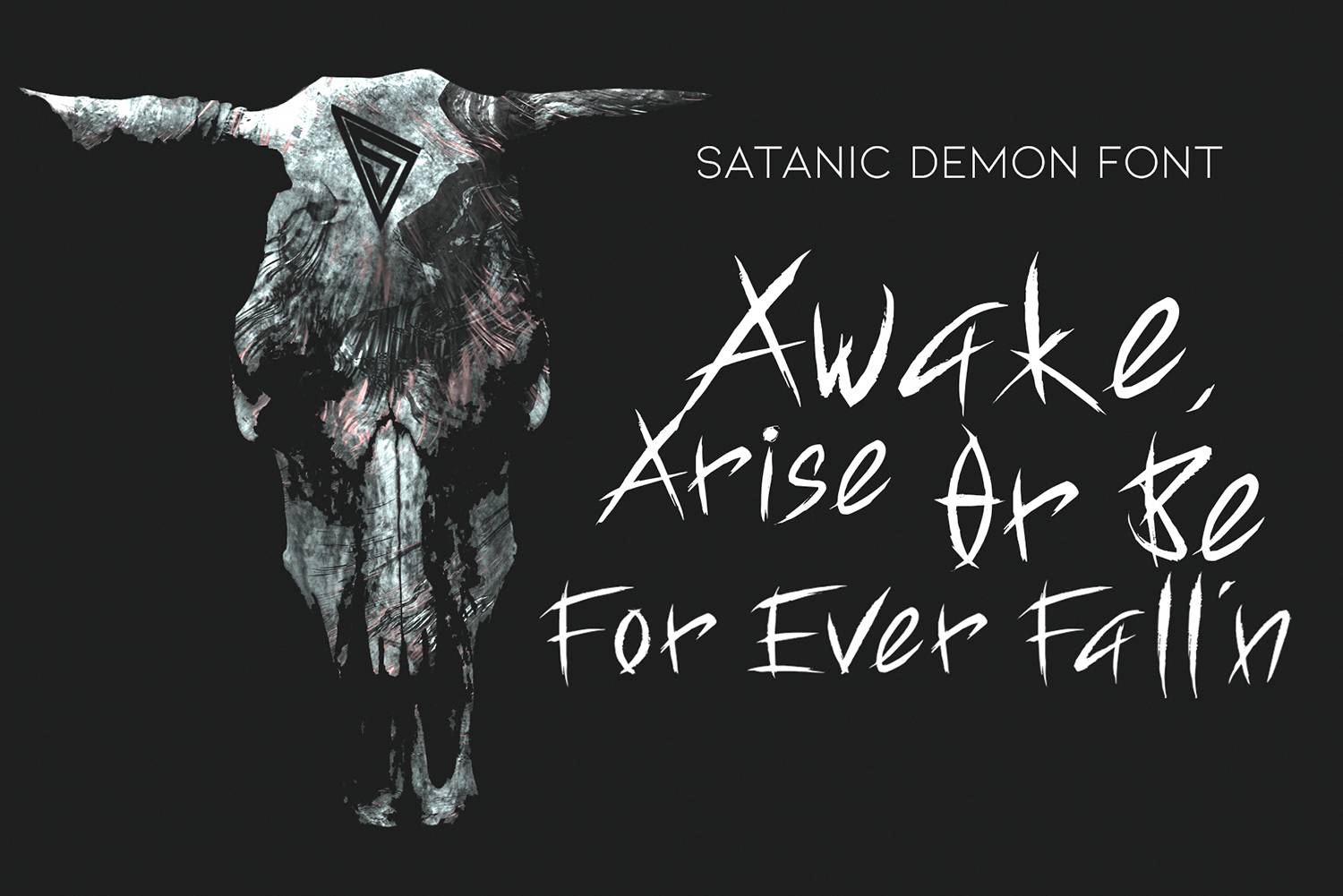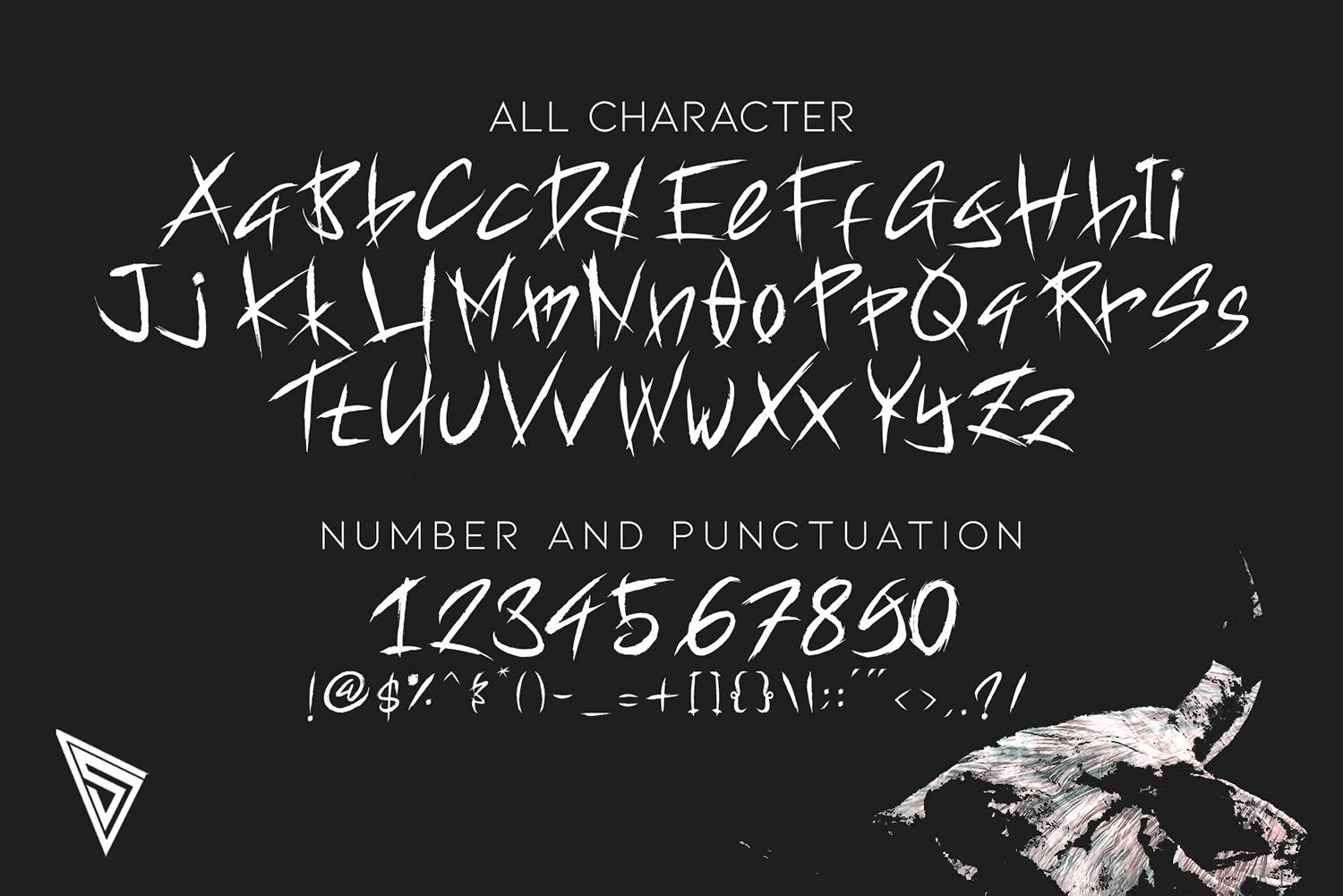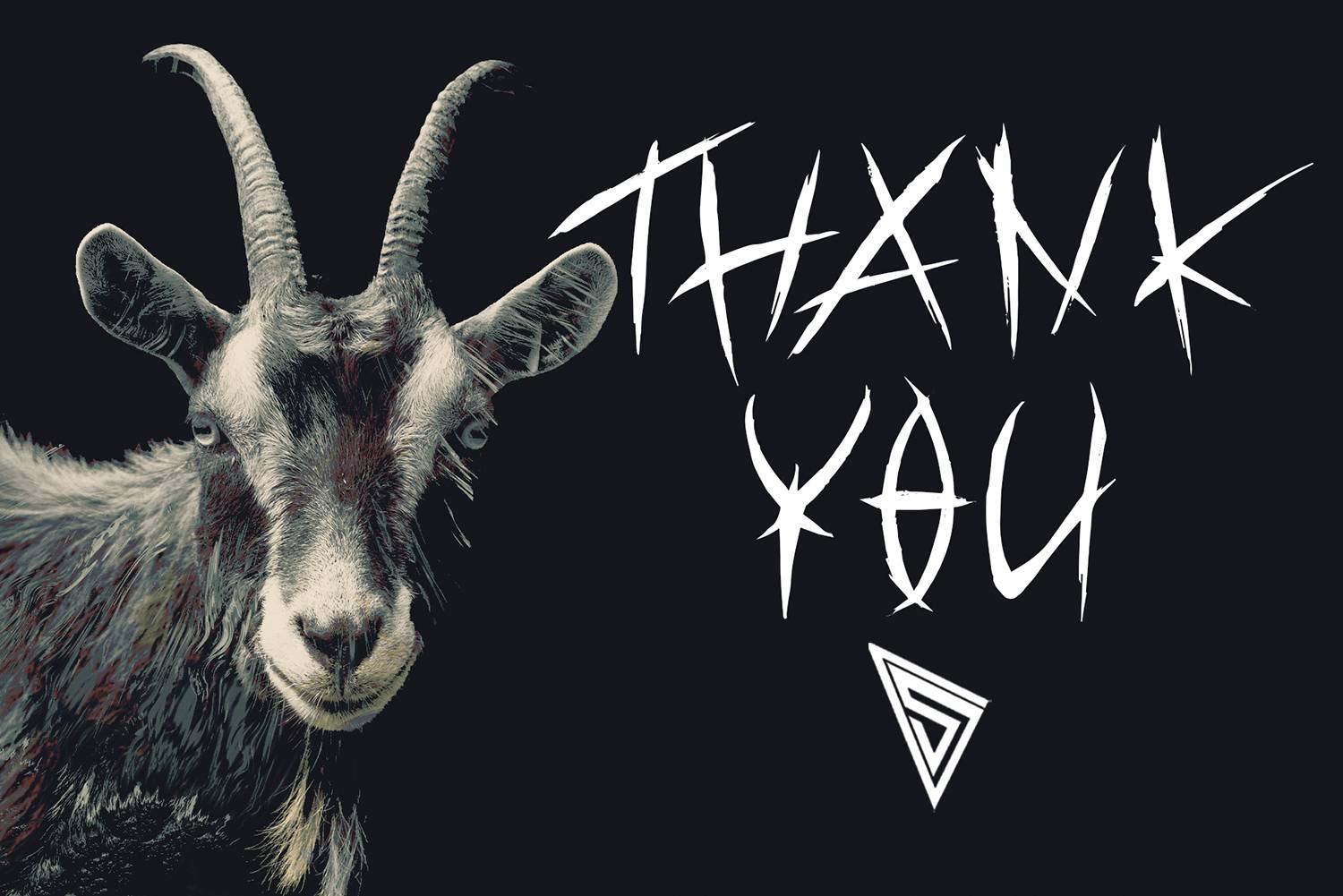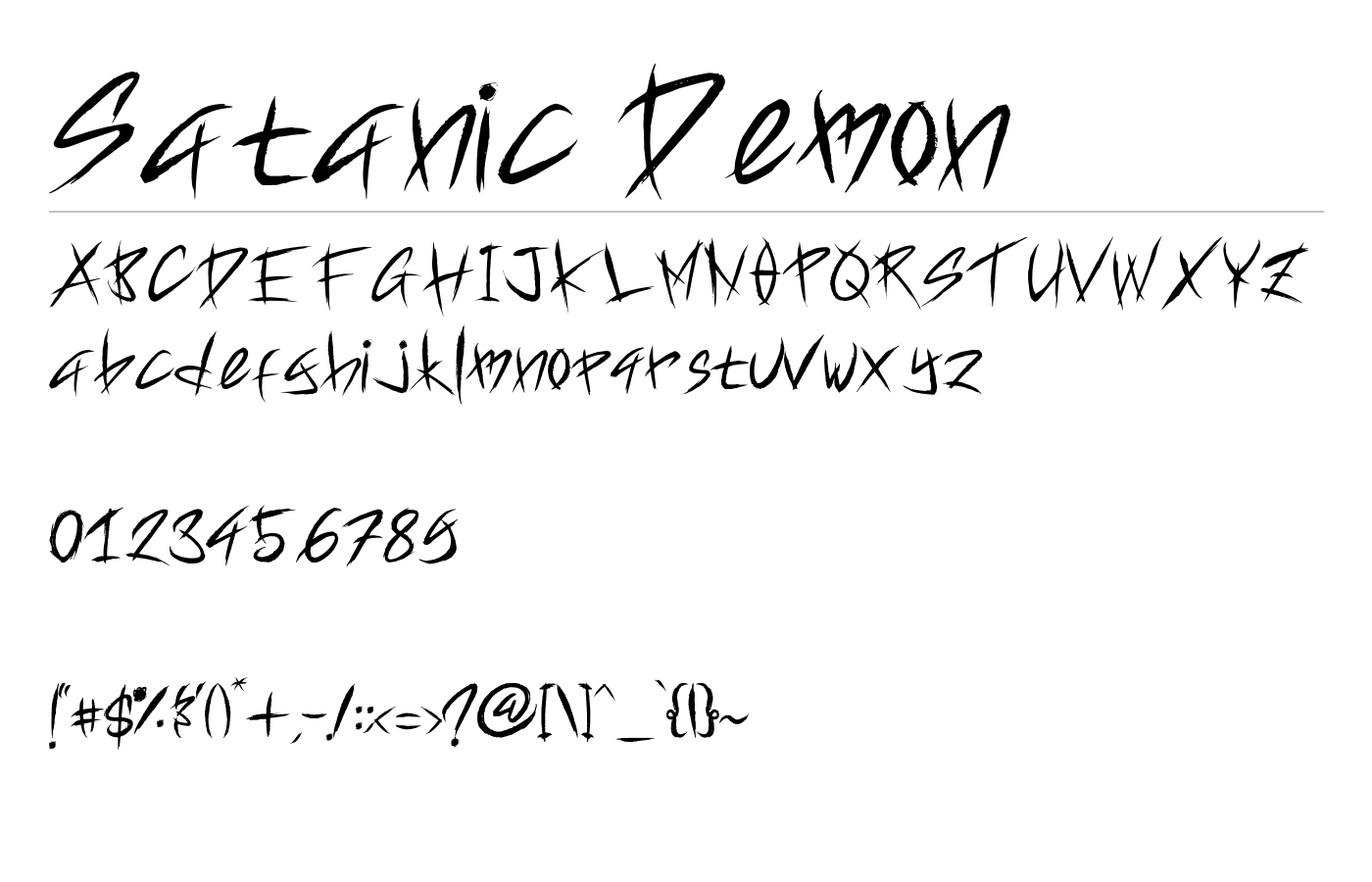
Satanic Demon is a jagged, hand-drawn script font with sharp, erratic strokes that evoke a dark and edgy vibe. Its irregular characters and rough texture make it ideal for horror, metal band logos, or any design seeking a rebellious, haunting atmosphere. This font grabs attention with its chaotic energy, perfect for bold headlines and thematic graphic projects.
Satanic Demon Font
About Satanic Demon Font
| Font family | Satanic Demon Font |
| Designer | Muhammad Helmi |
| Trademark | Seneka Grafika |